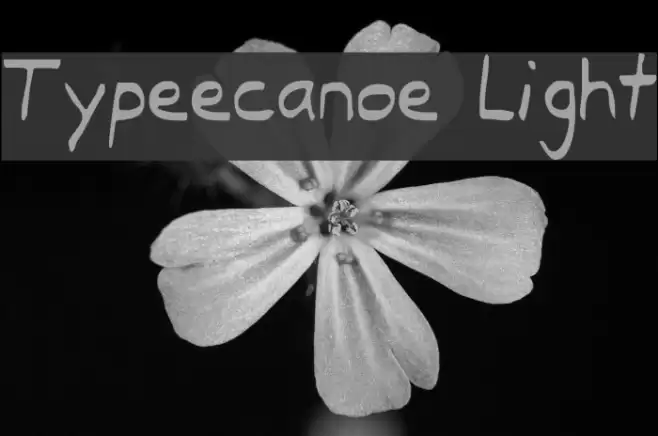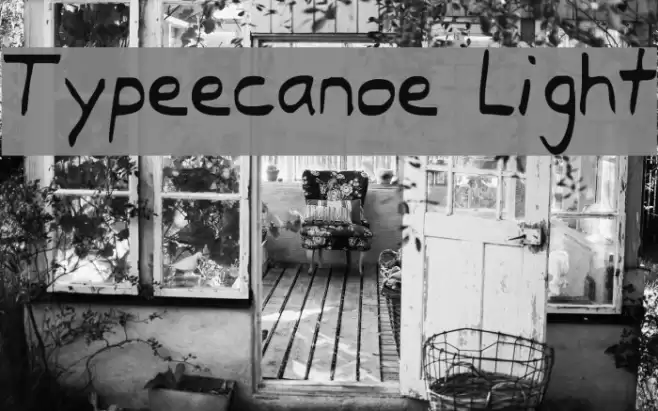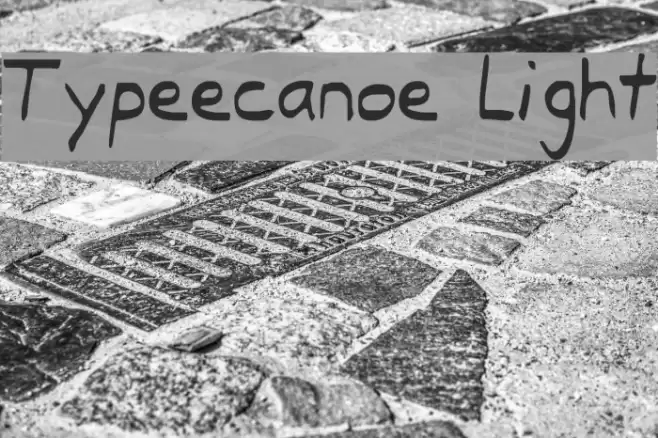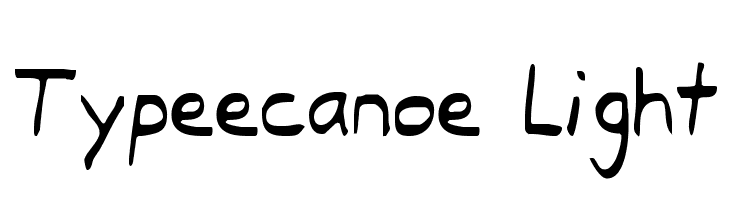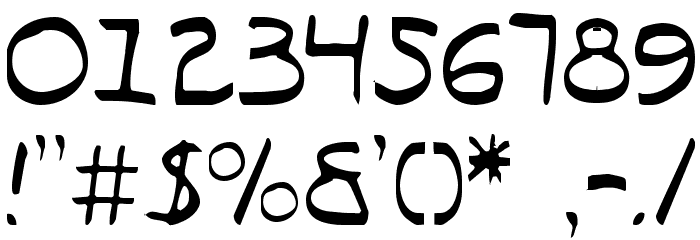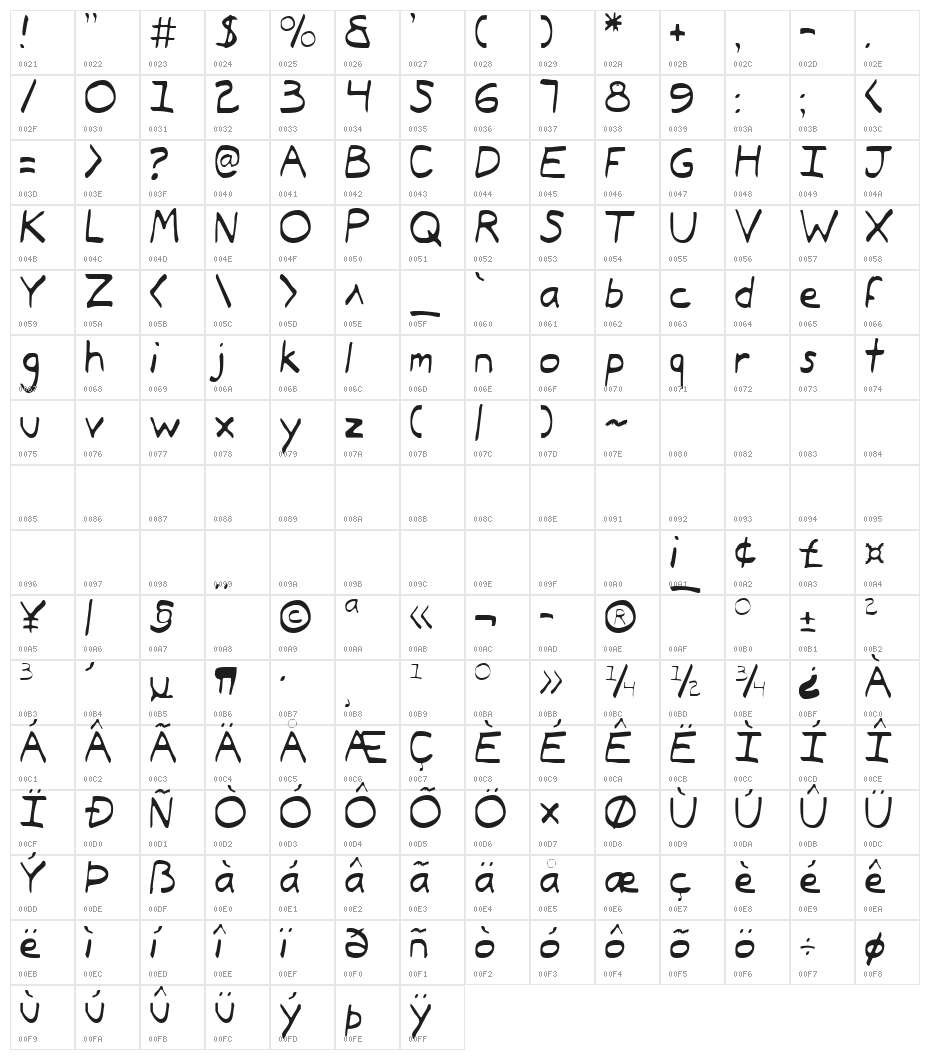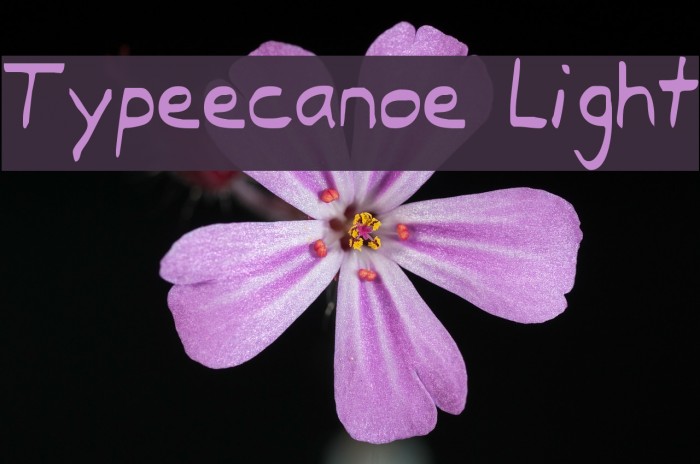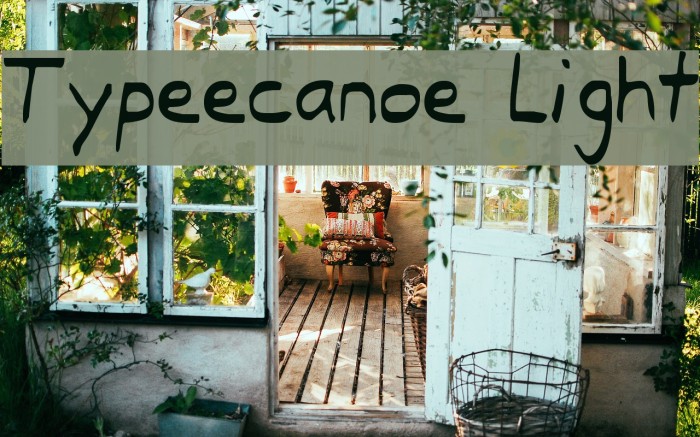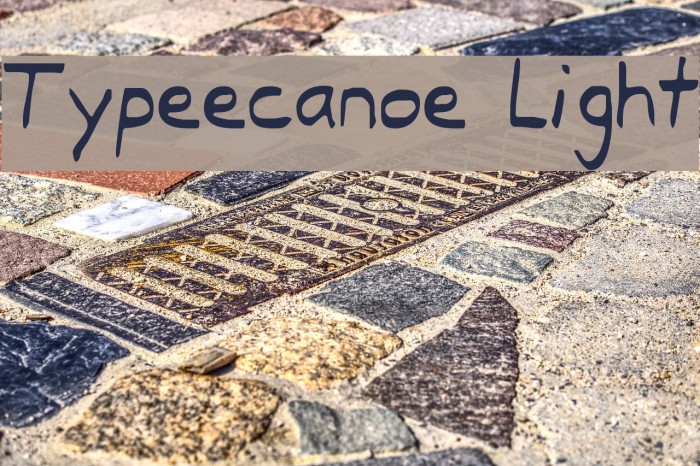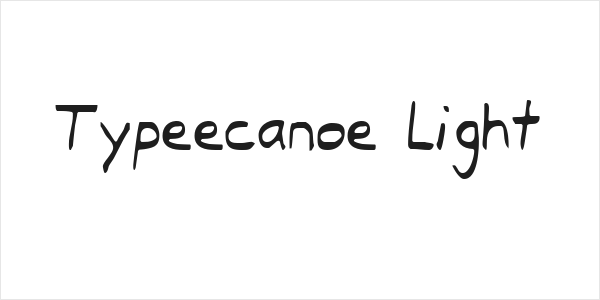
Typeecanoe Light Font
Typeecanoe Light Description
This font features a playful and informal handwritten style, characterized by its uneven strokes and slightly irregular letterforms. The uppercase and lowercase letters maintain a consistent flow, giving it a casual and friendly appearance. The numerals and special characters follow the same whimsical style, making it suitable for creative and informal projects. Its unique charm lies in the organic feel of each character, which appears as though it was drawn with a marker or brush. The font's overall look is approachable and lively, making it ideal for projects that require a personal touch.
A playful, handwritten font with uneven strokes and a casual style from Uncategorized fonts.
- Proposed Projects: Ideal for greeting cards, children's books, playful branding, and informal invitations.
- Overall Style: Casual
- Use Case: Headlines, Logos, Informal Text